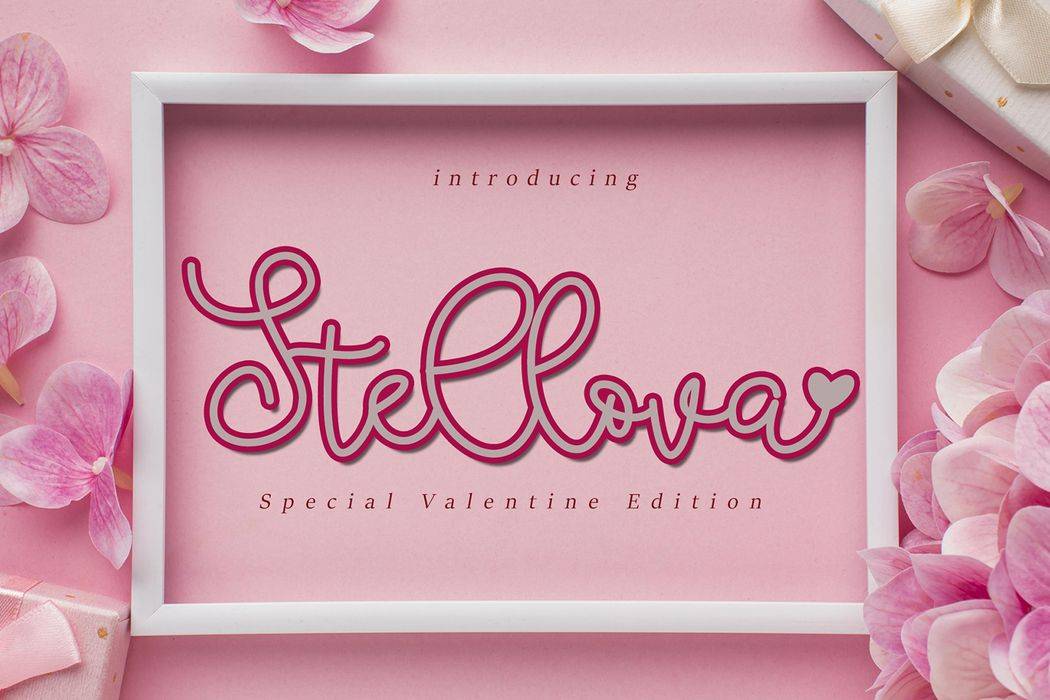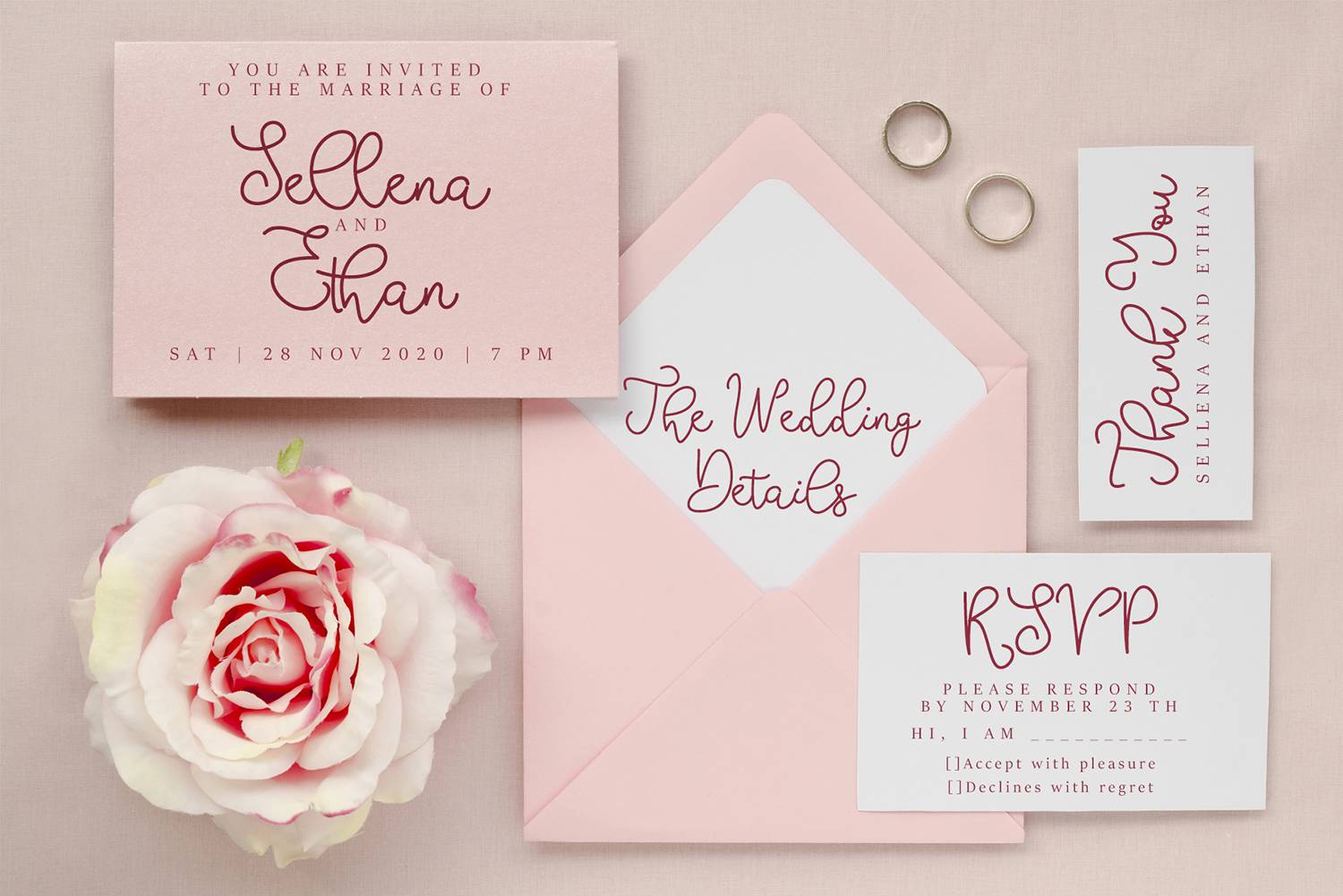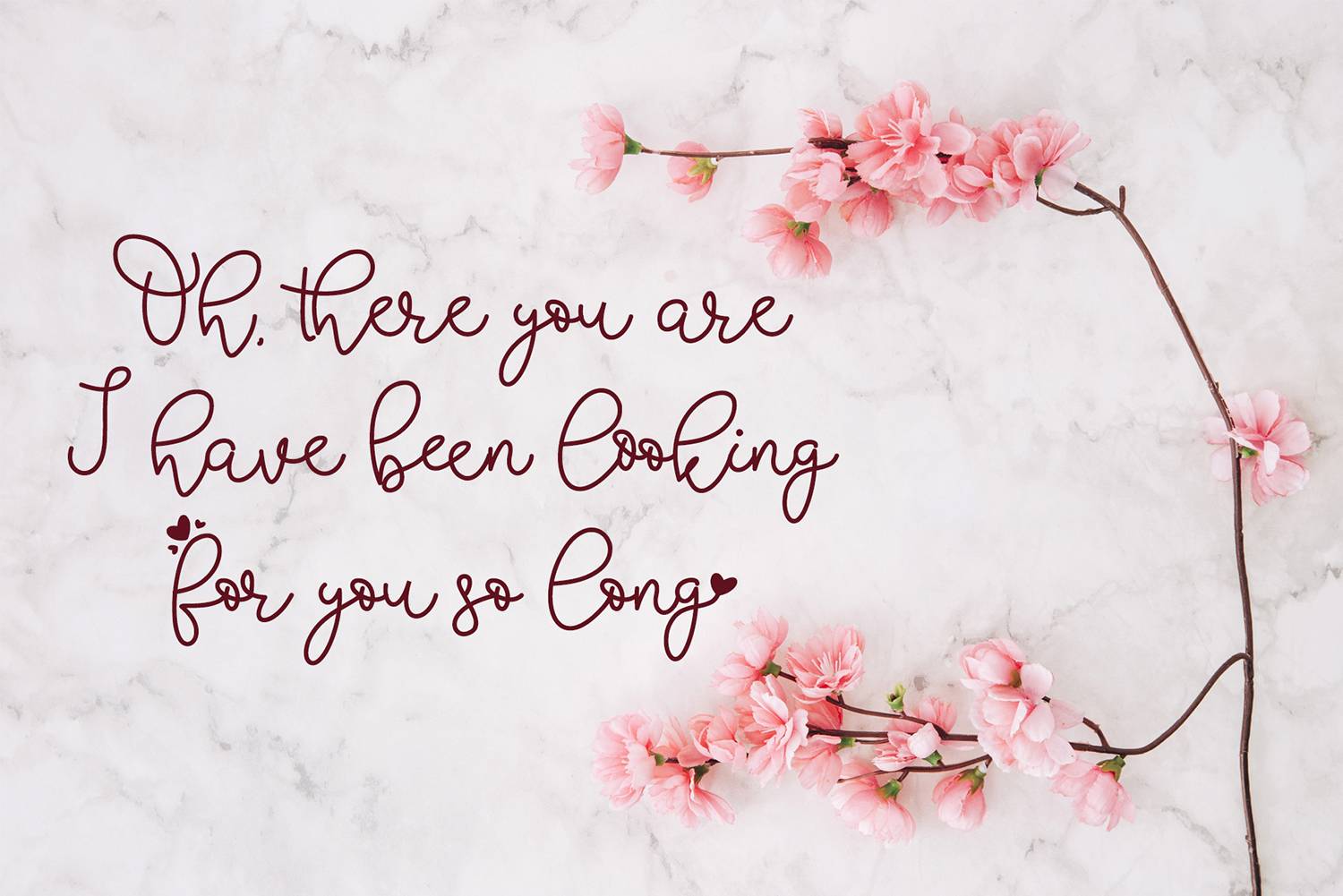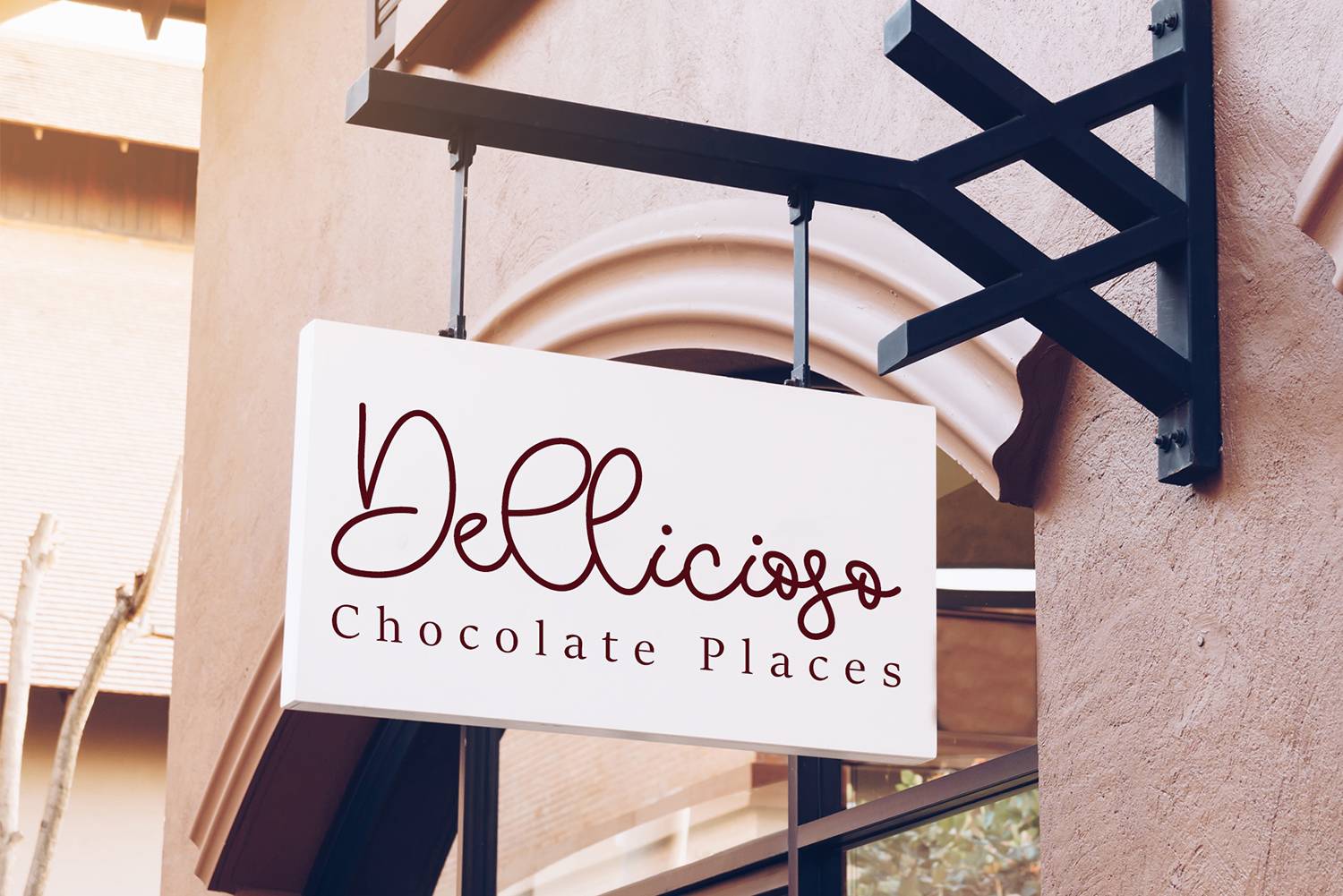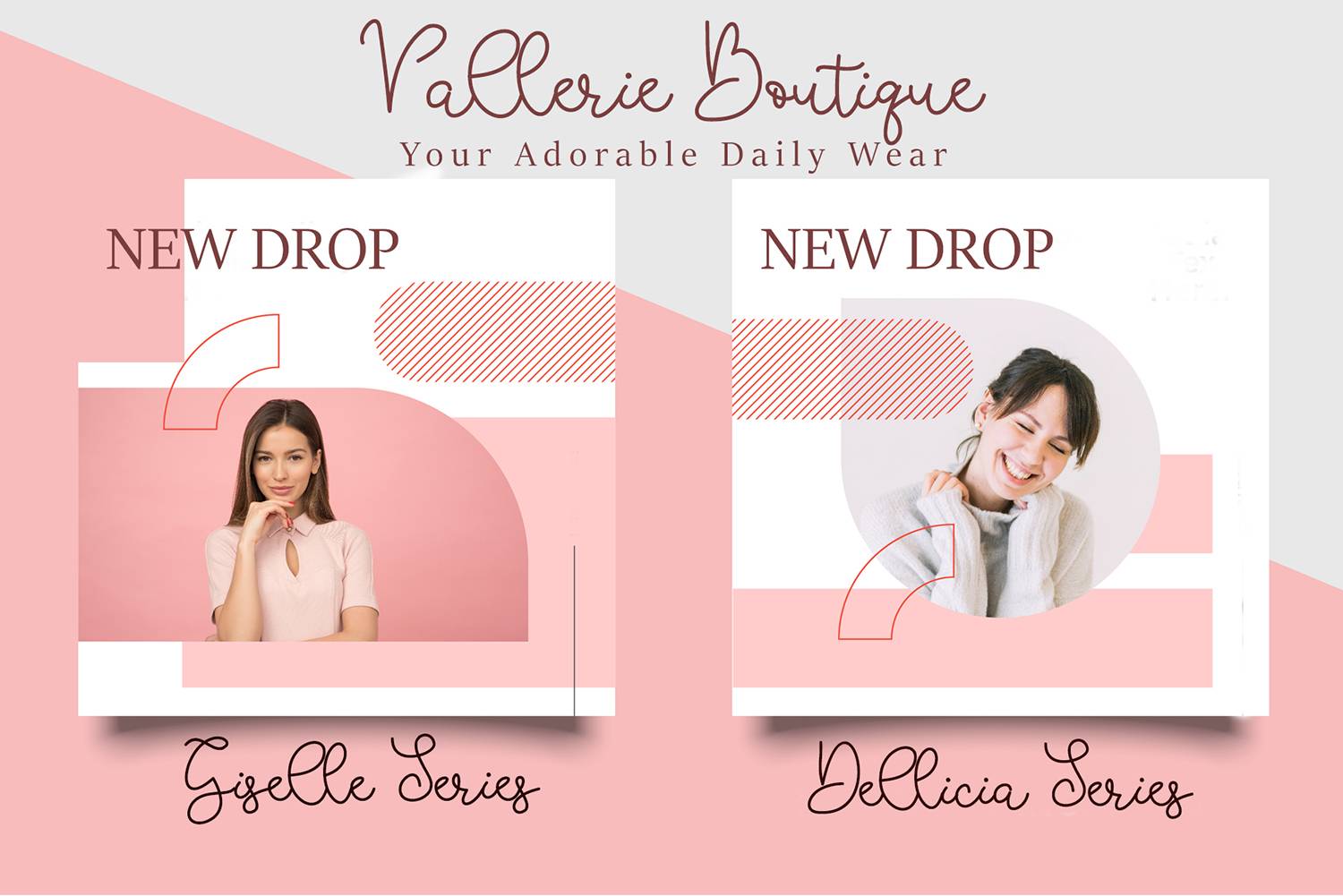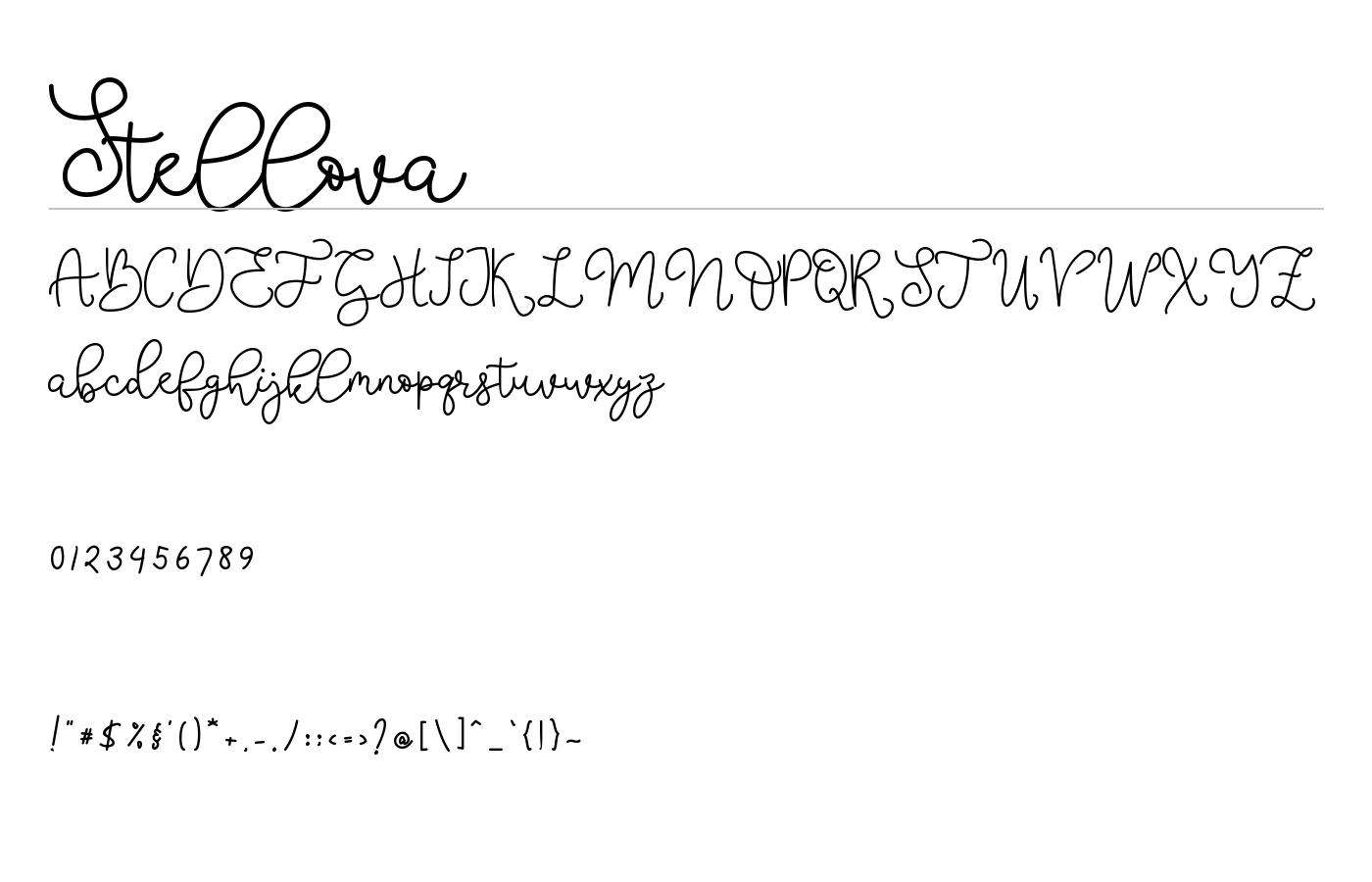
Stellova is a delicate, handwritten script font with elegant, flowing lines and playful loops that give it a charming, whimsical personality. Its light weight and airy structure make it perfect for creative branding, invitations, and feminine design projects where a personal, artistic touch is desired. This font works beautifully for logos and headlines that seek to convey warmth and creativity with a refined, casual vibe.
Stellova Font
About Stellova Font